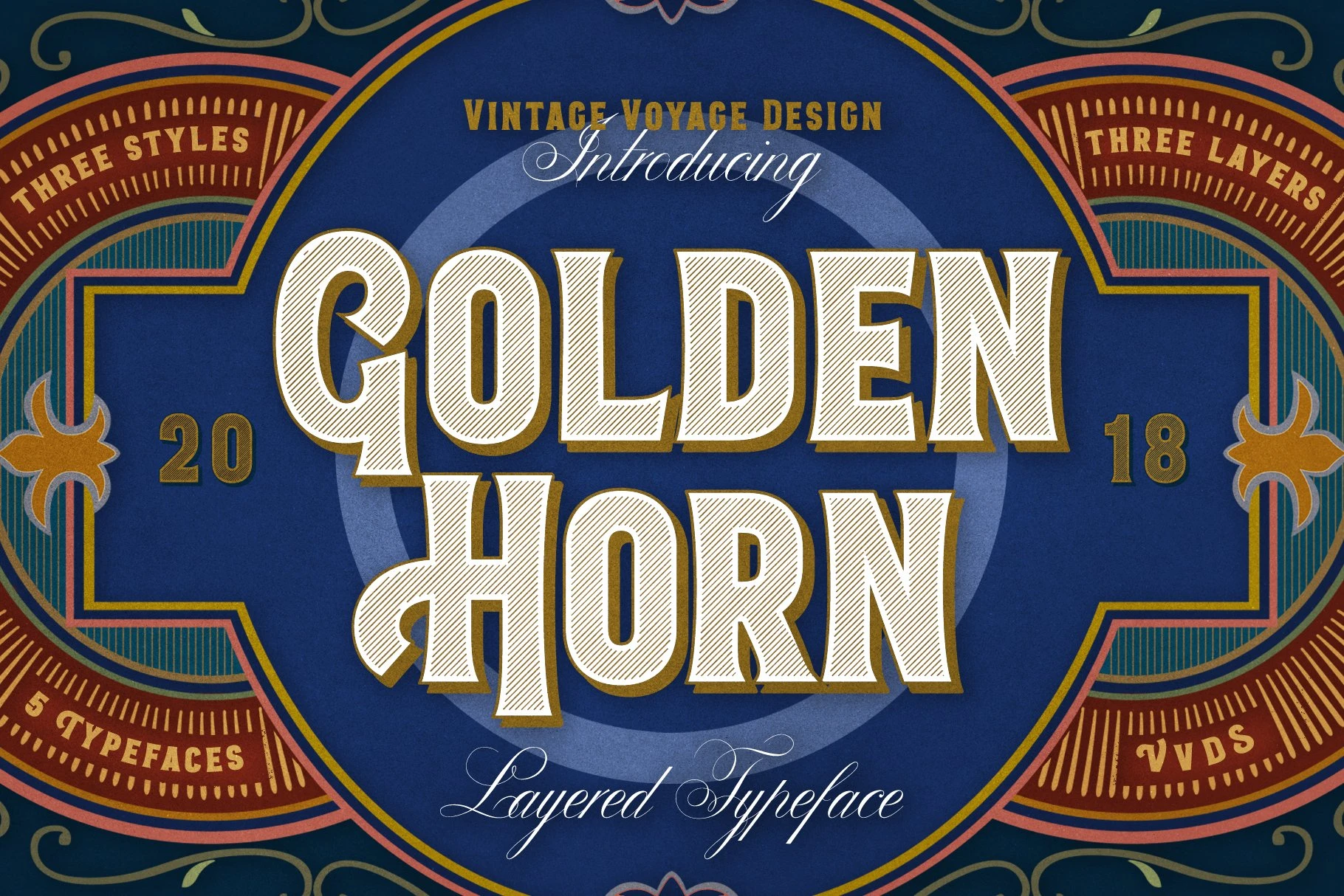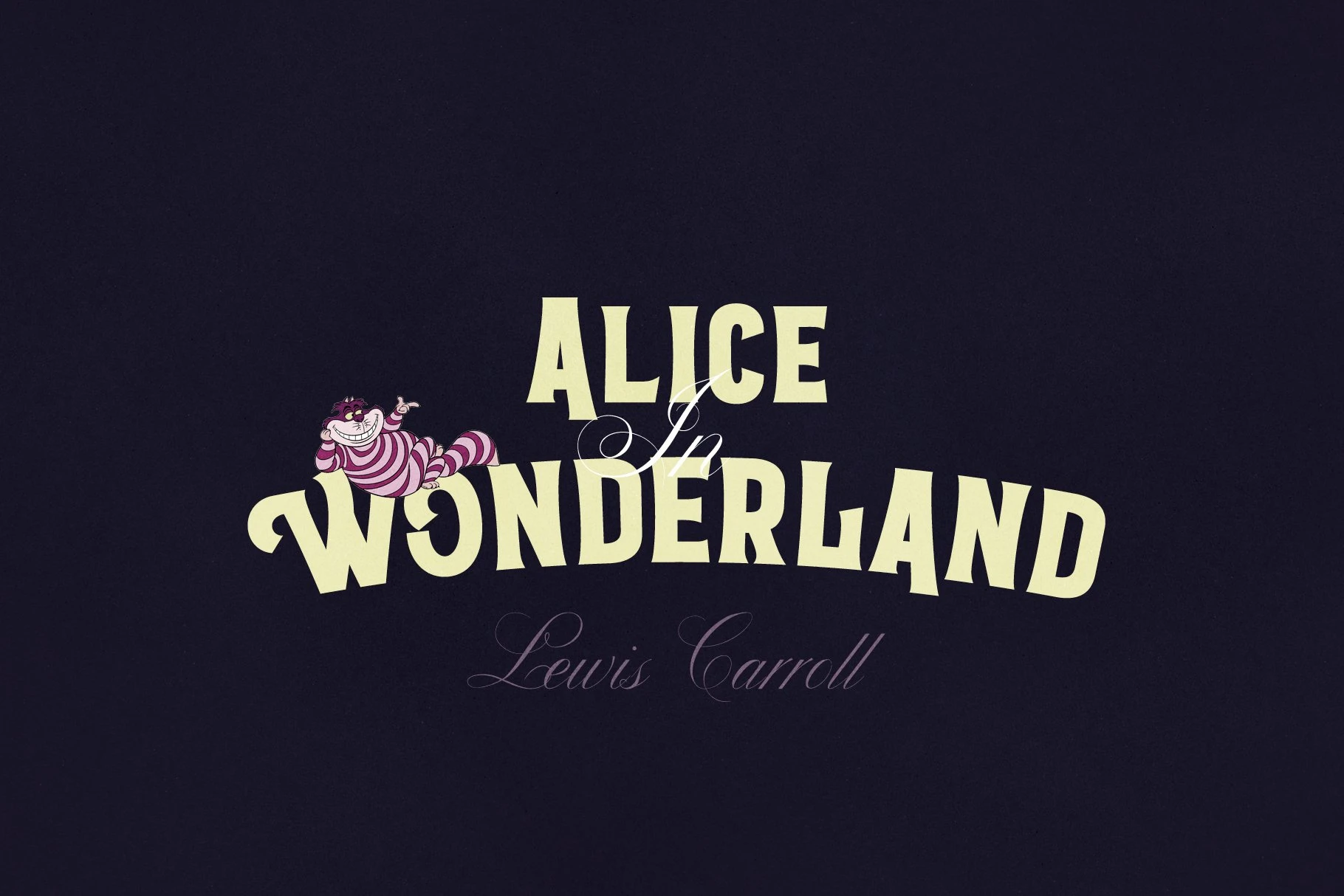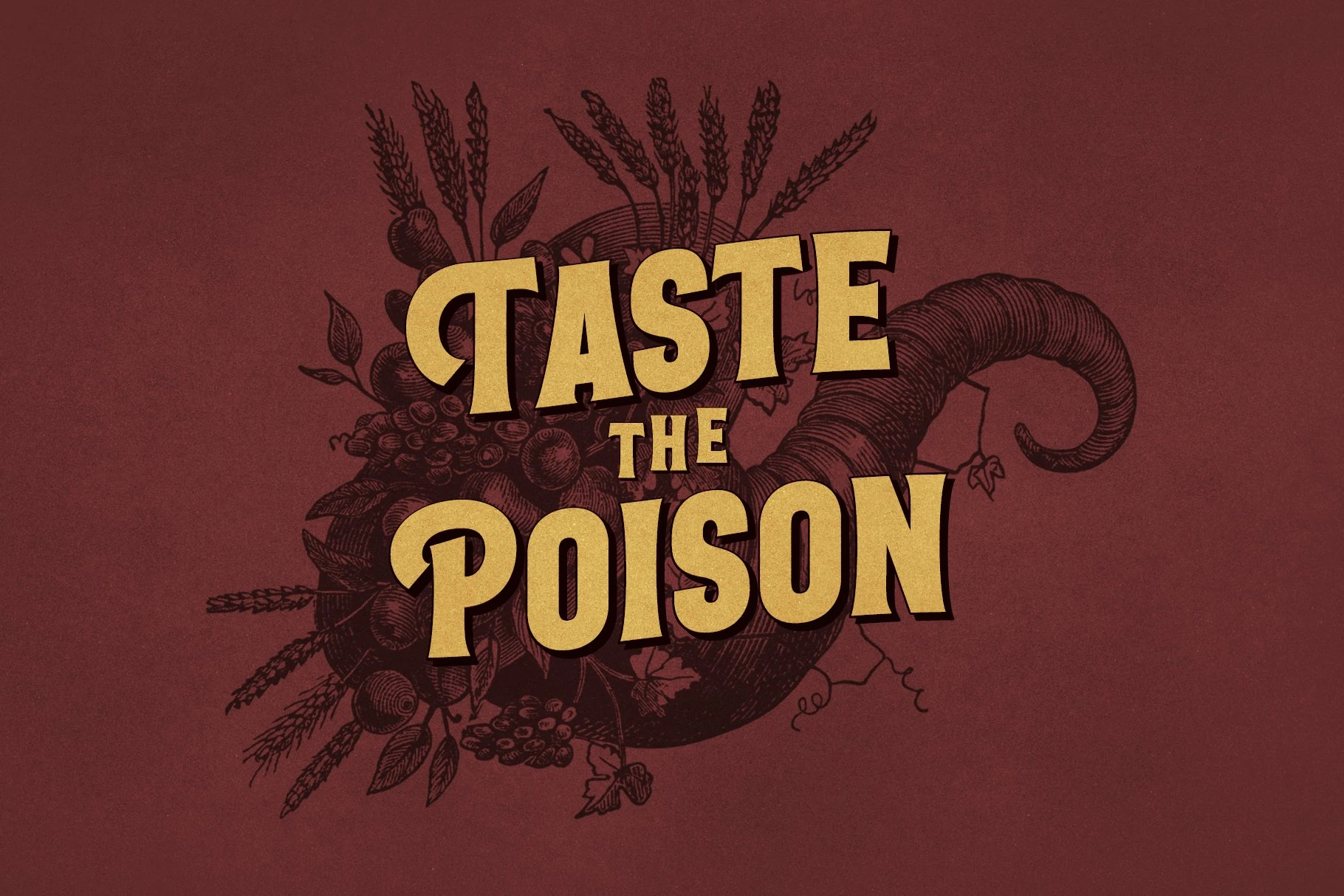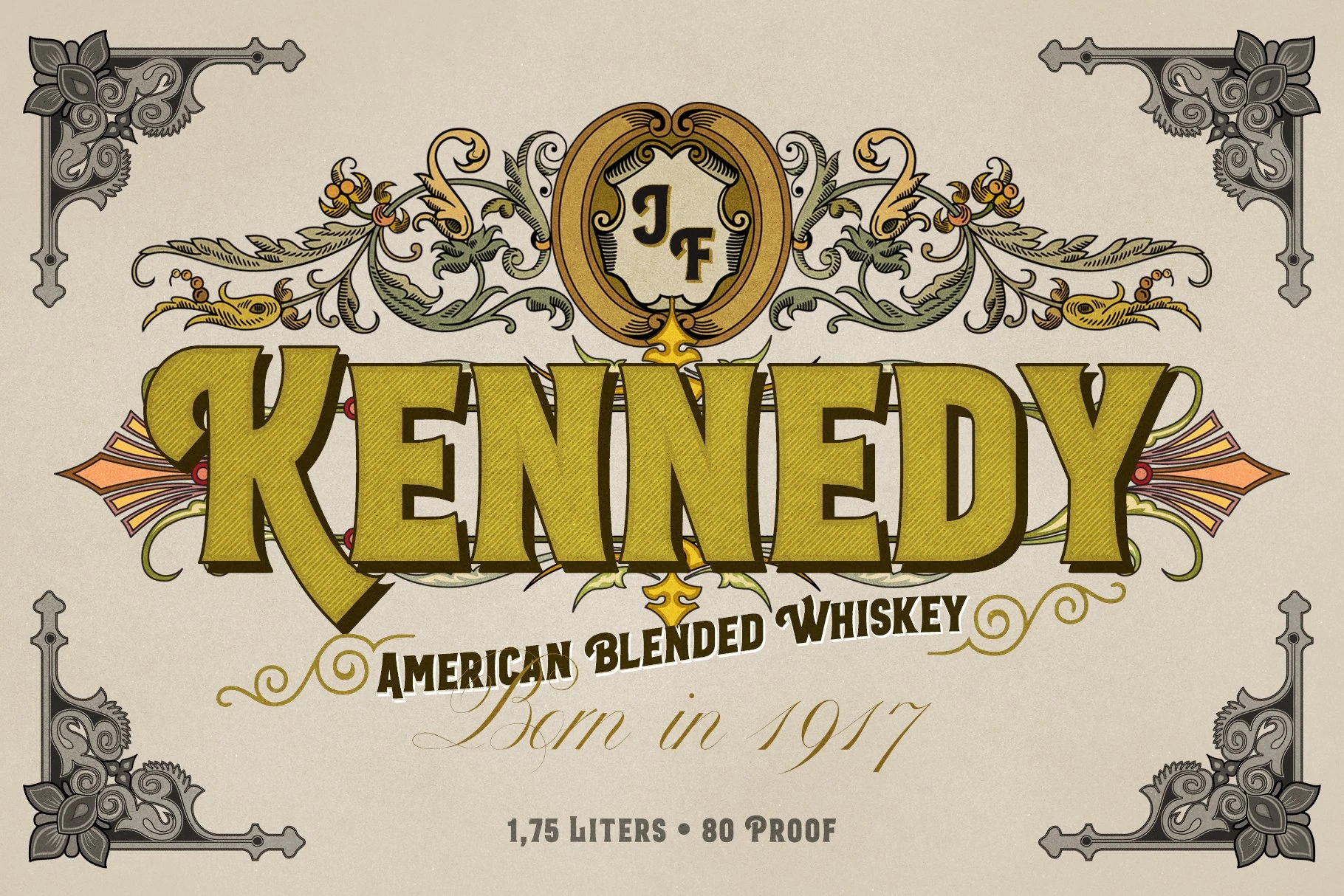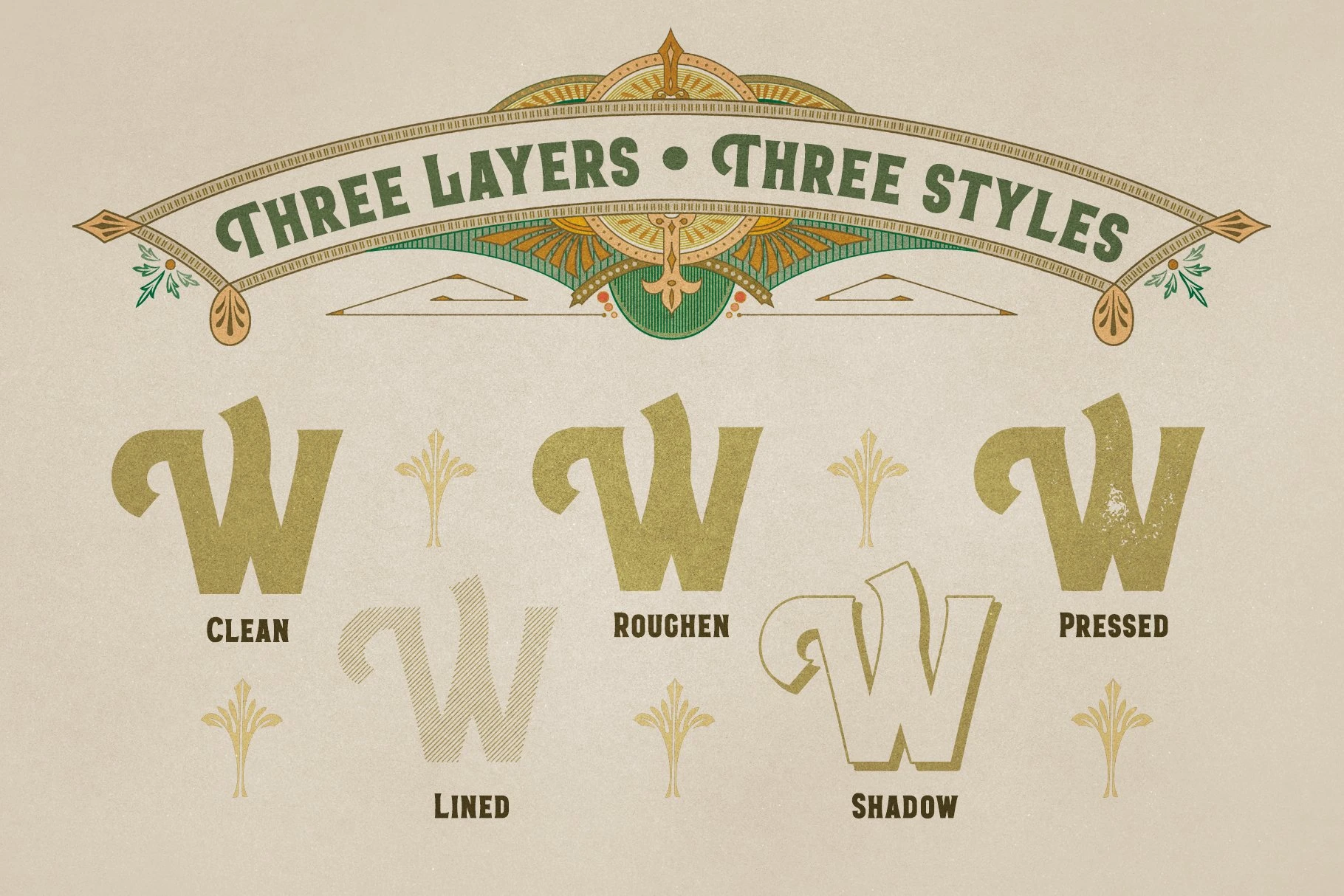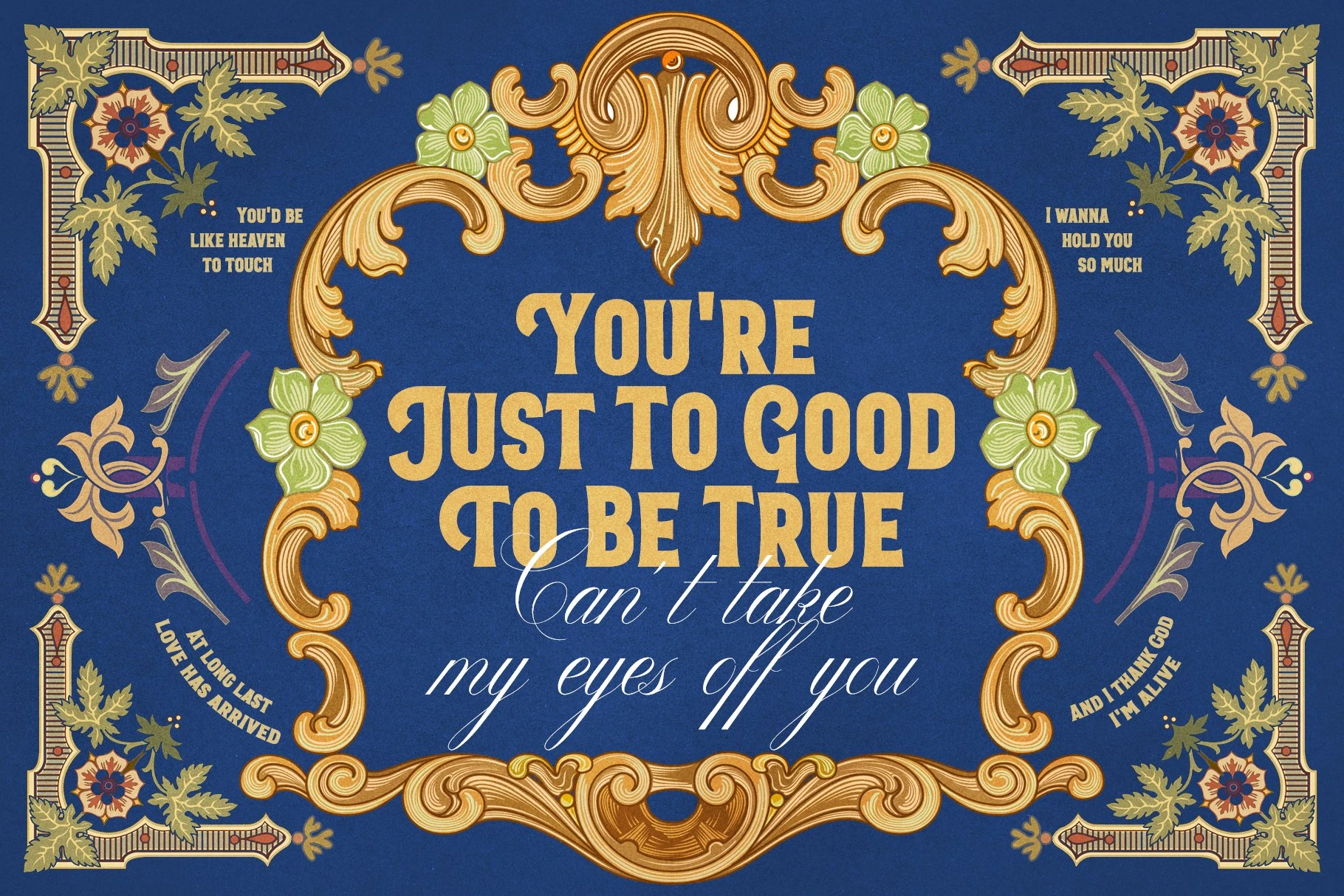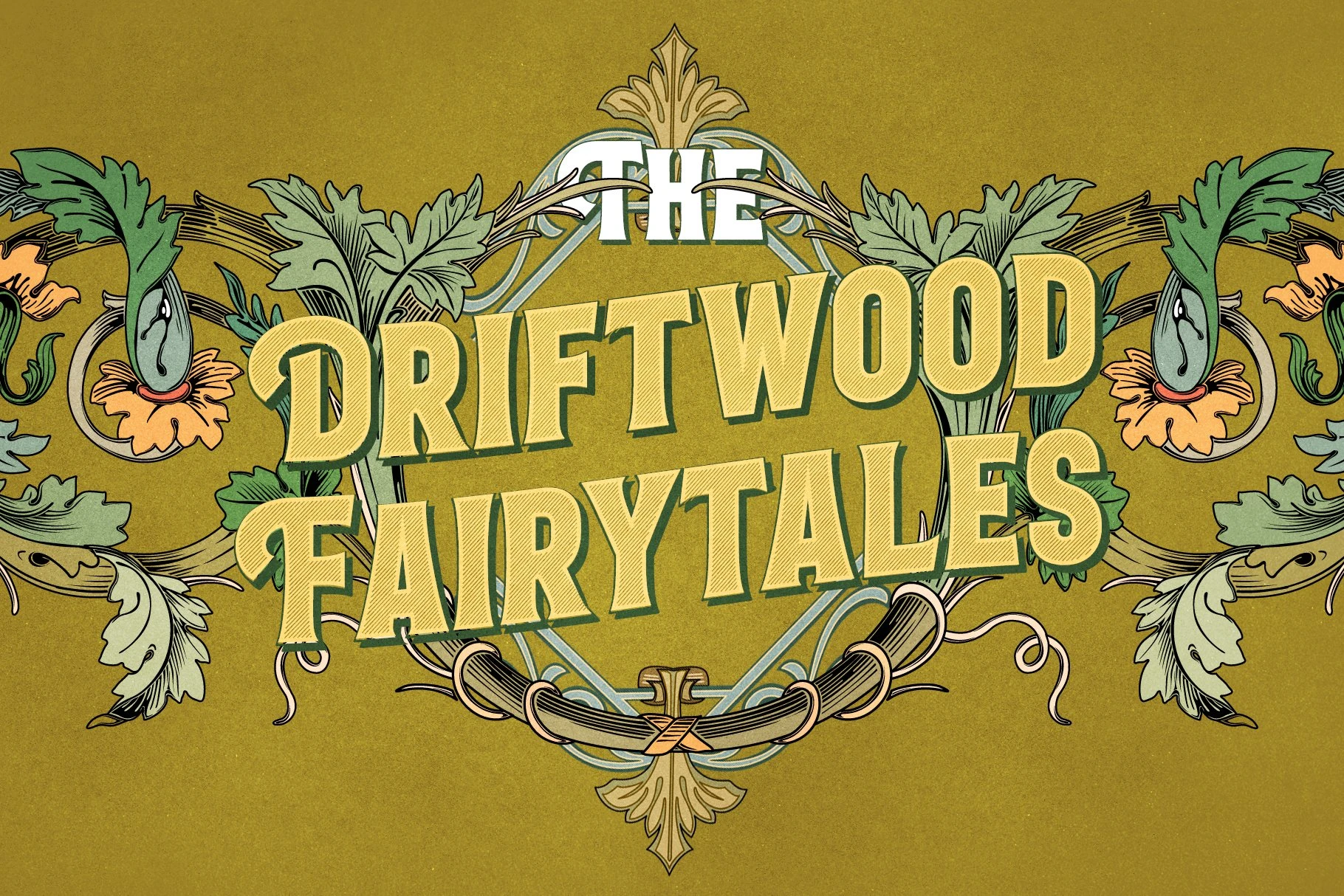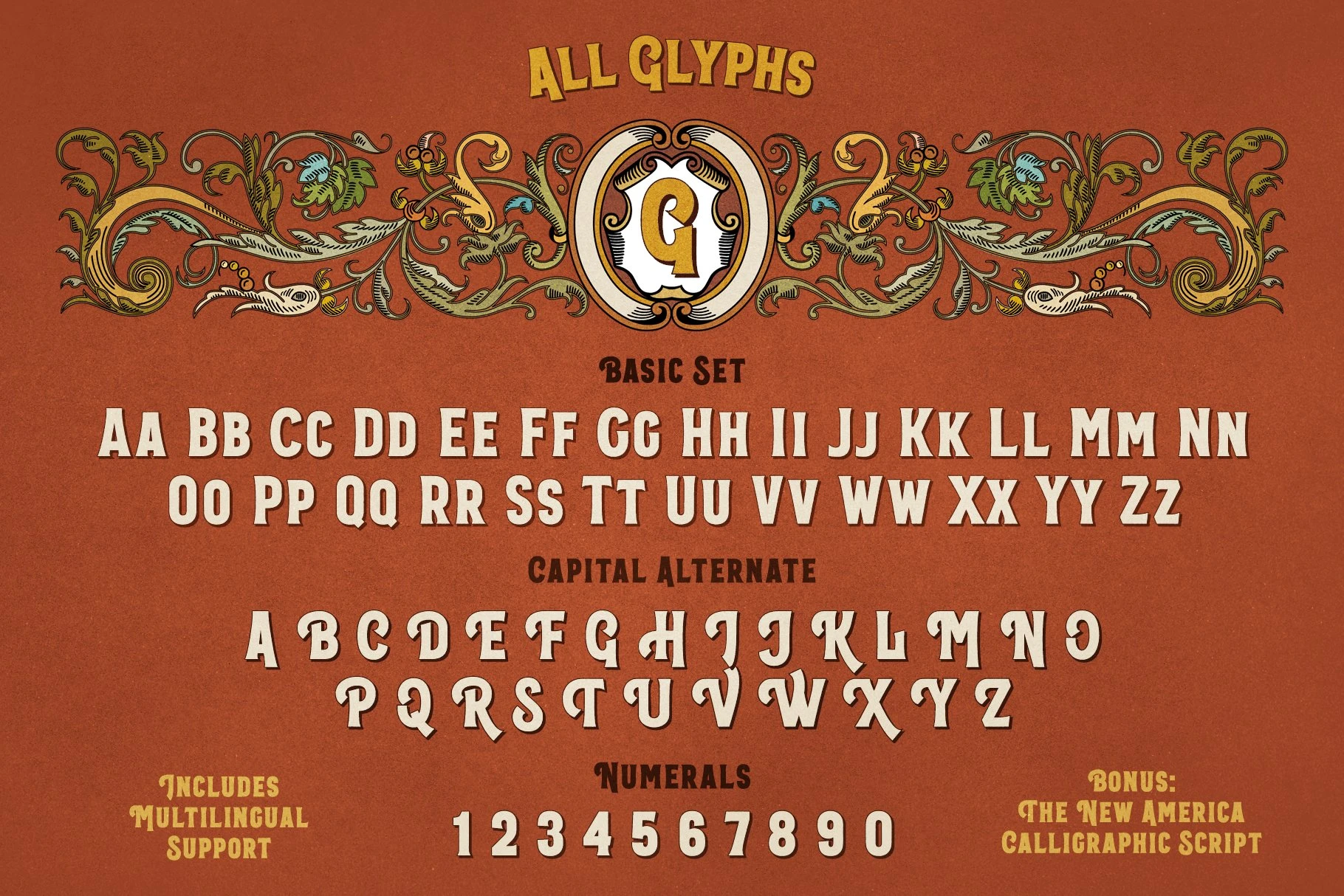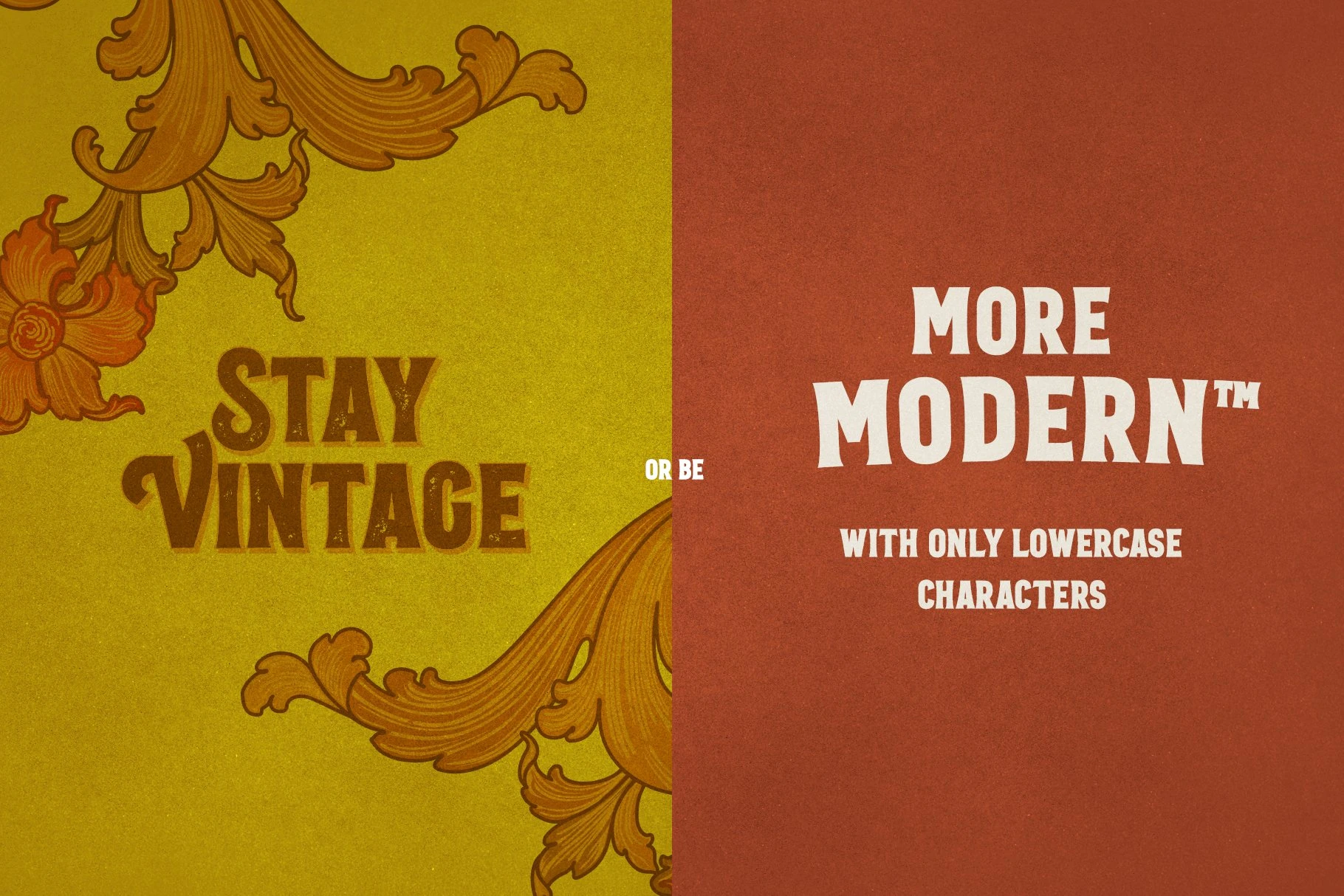
Golden Horn Font Family
Golden Horn is a gently crafted typeface with a vintage touch. Offers multiple style variations for creating authentic retro designs. Pressed and rough styles bring a worn, classic look, while the clear and lined versions give a softer, refined feel. Using the basic set alone delivers a modern, clean appearance. Perfect for logos, packaging, posters, and any project needing a mix of vintage charm and contemporary style.
• Stylistic Alternates
• Stylistic Sets